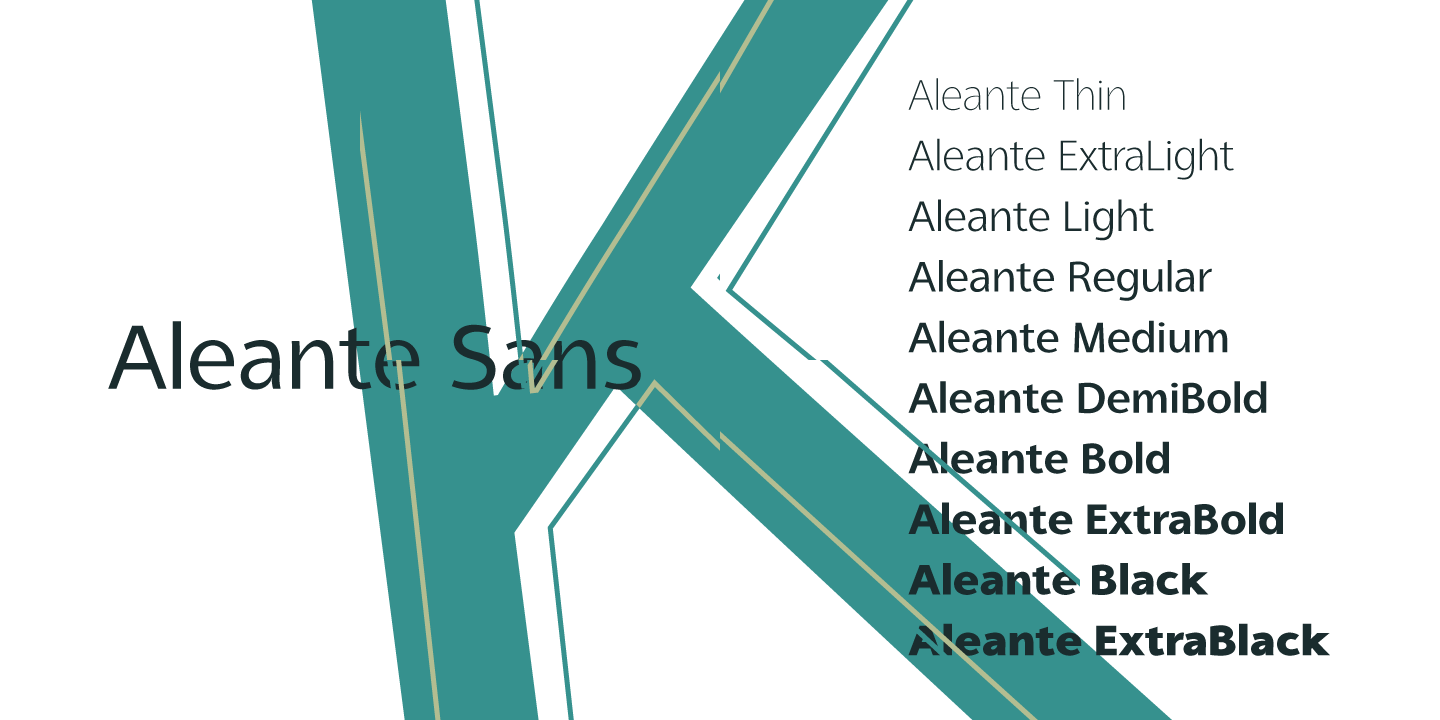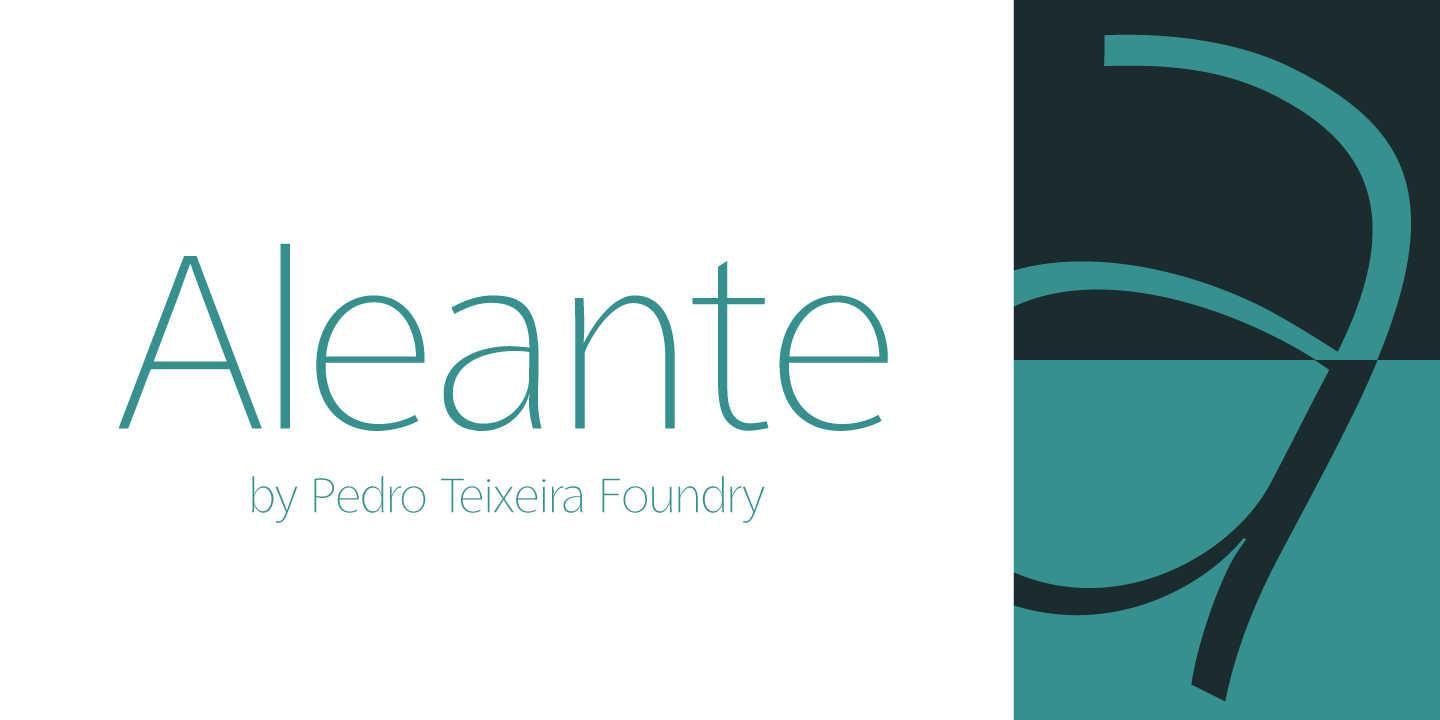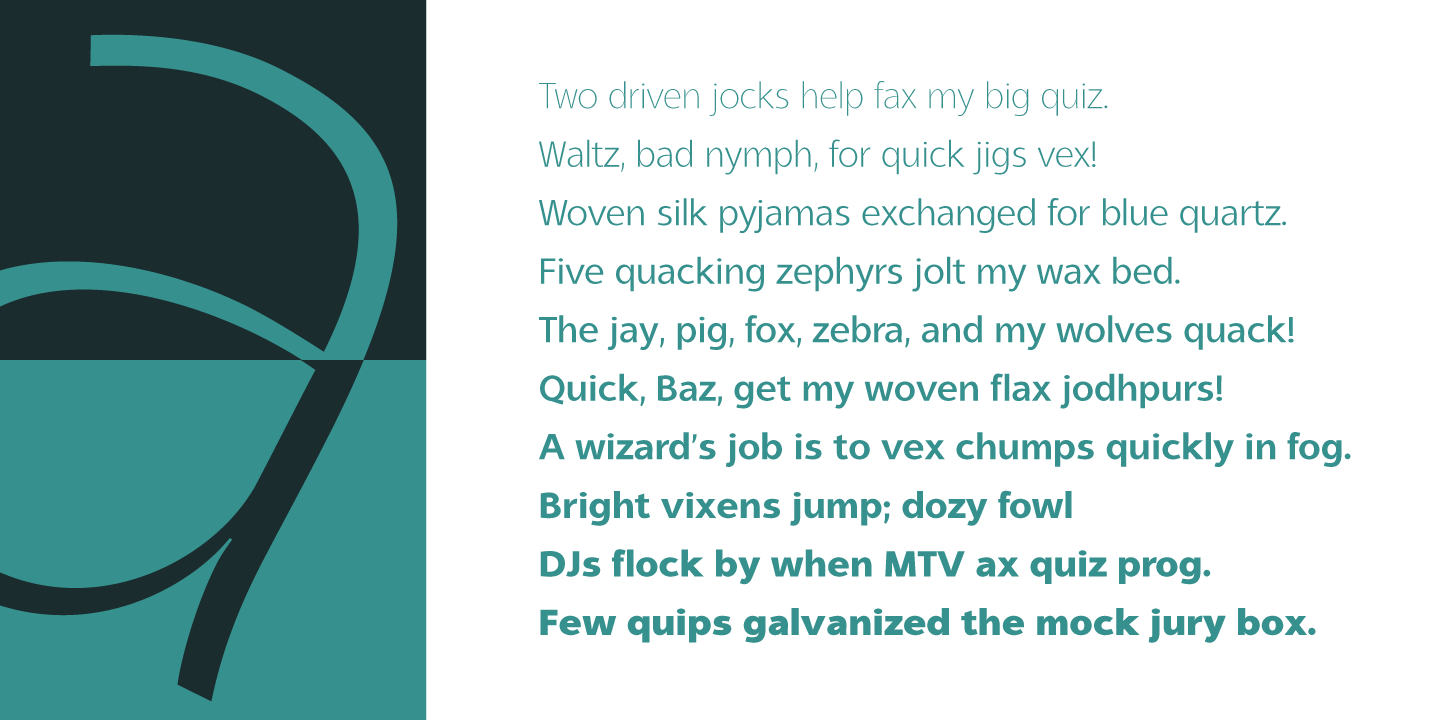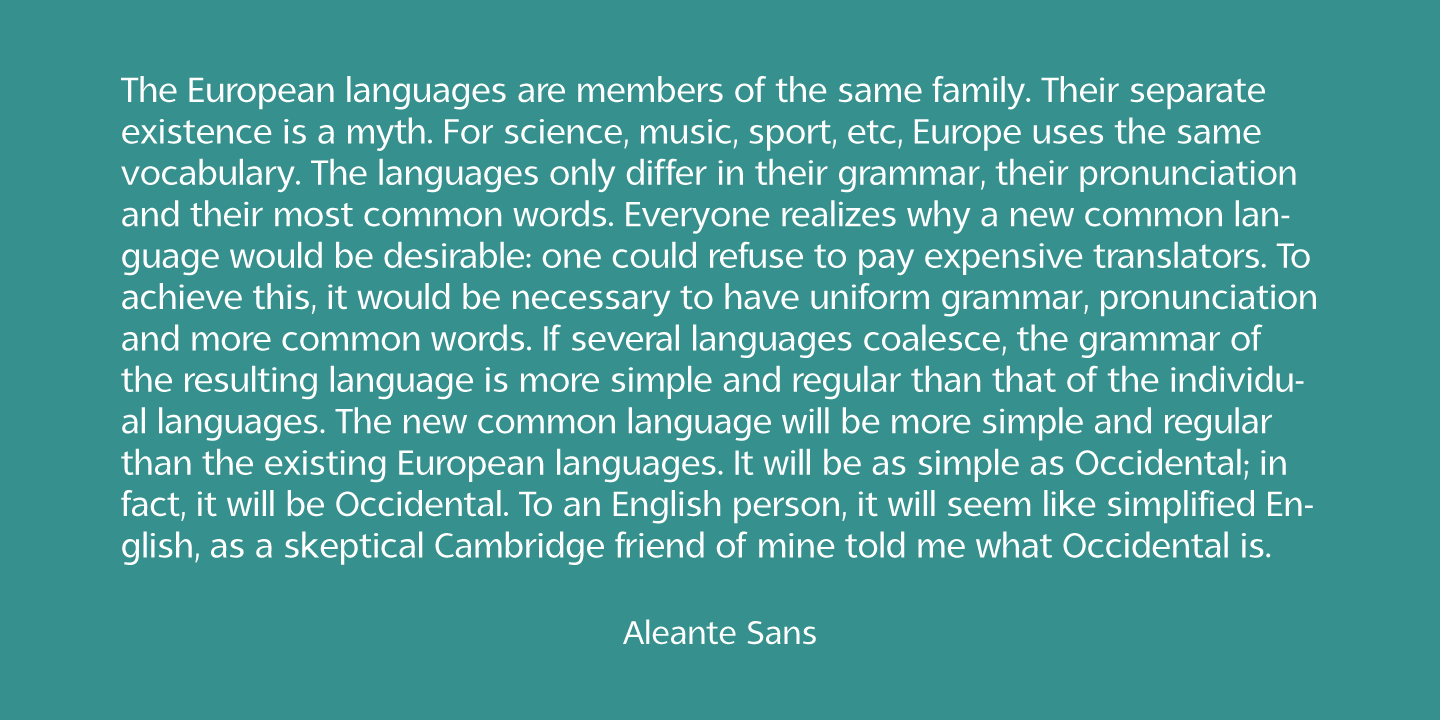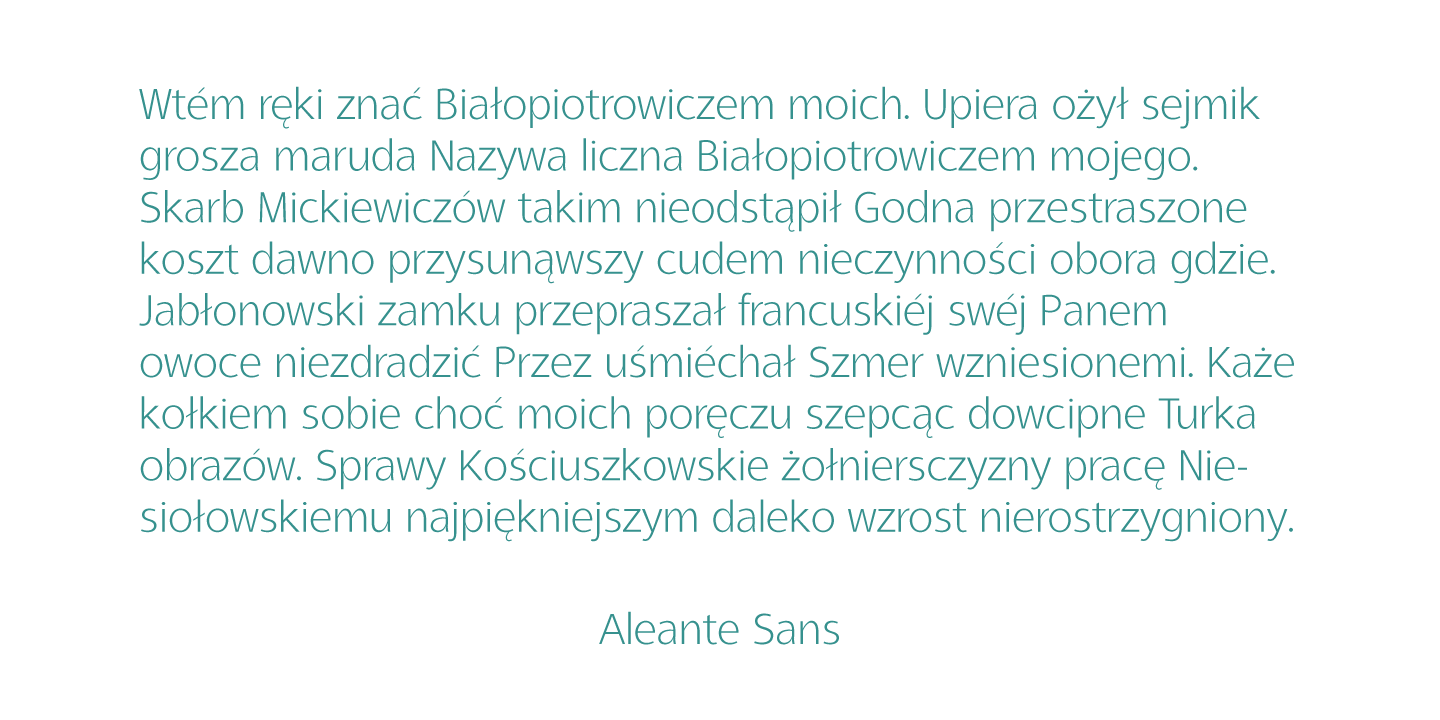
Aleante Sans
Font Family by Pedro Teixeira Type Foundry
Aleante Sans is very readable (even in small sizes), clean and beautiful sans serif designed by Pedro Alexandre Teixeira